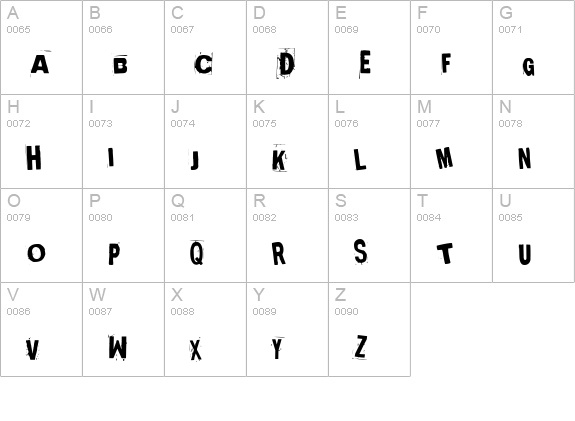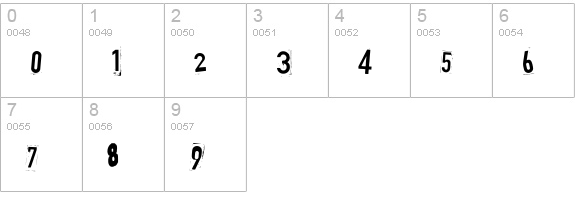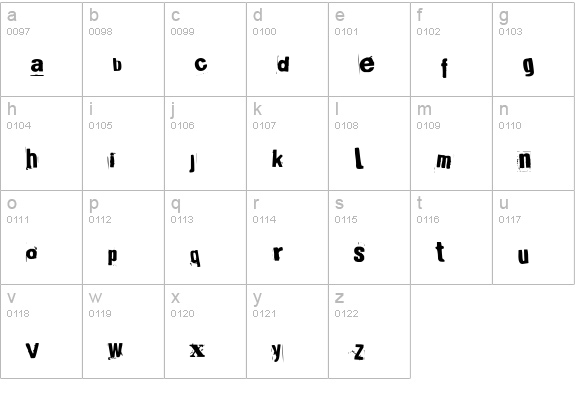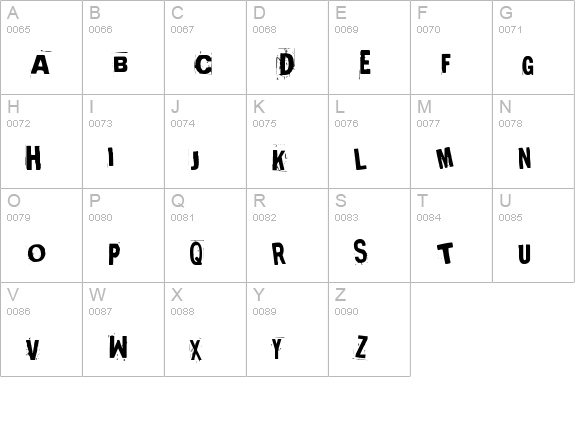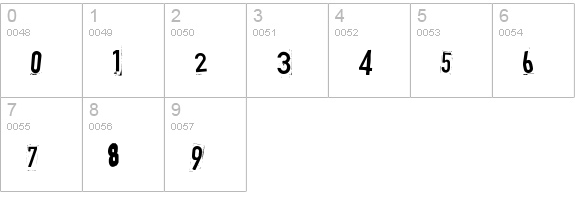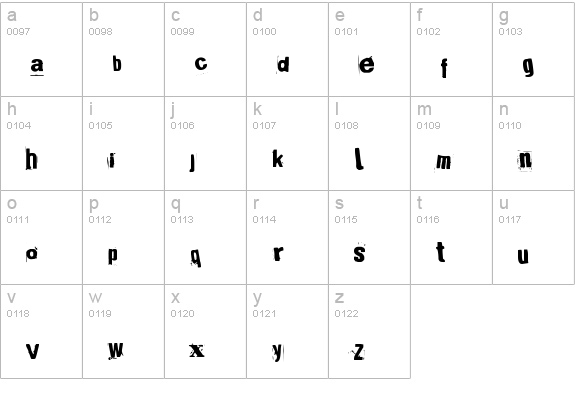
Broken 15 Font Details
The Broken 15 font exudes a unique and edgy aesthetic, perfect for adding a touch of artistic flair to your designs. This font features a broken and distressed look, adding a sense of character and individuality to any project. Its jagged edges and irregular lines give off a raw and unconventional feel, making it a standout choice for those looking to make a statement with their typography. What's even better is that the Broken 15 font is available for free download at FontsMarket.com. Yes, you read that right - this one-of-a-kind font can be yours at no cost at all. So why wait? Go ahead and grab the Broken 15 font today to add a touch of creativity and originality to your designs!